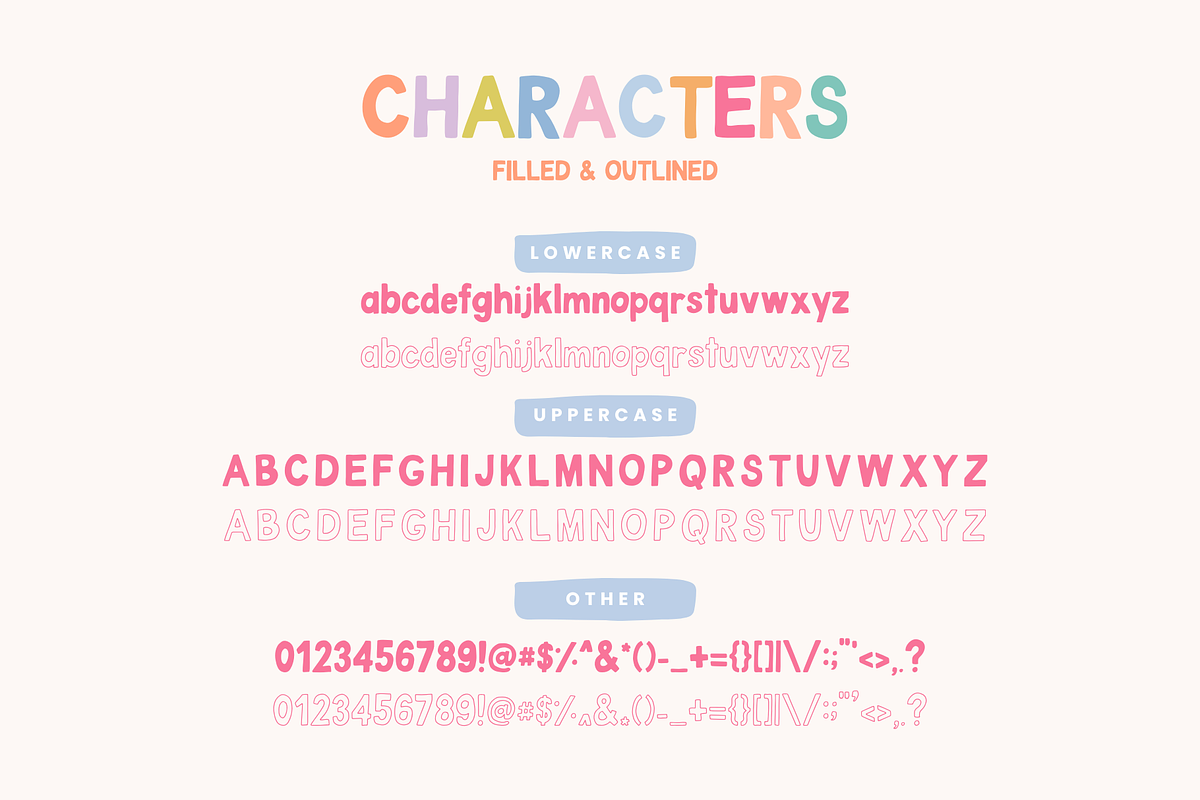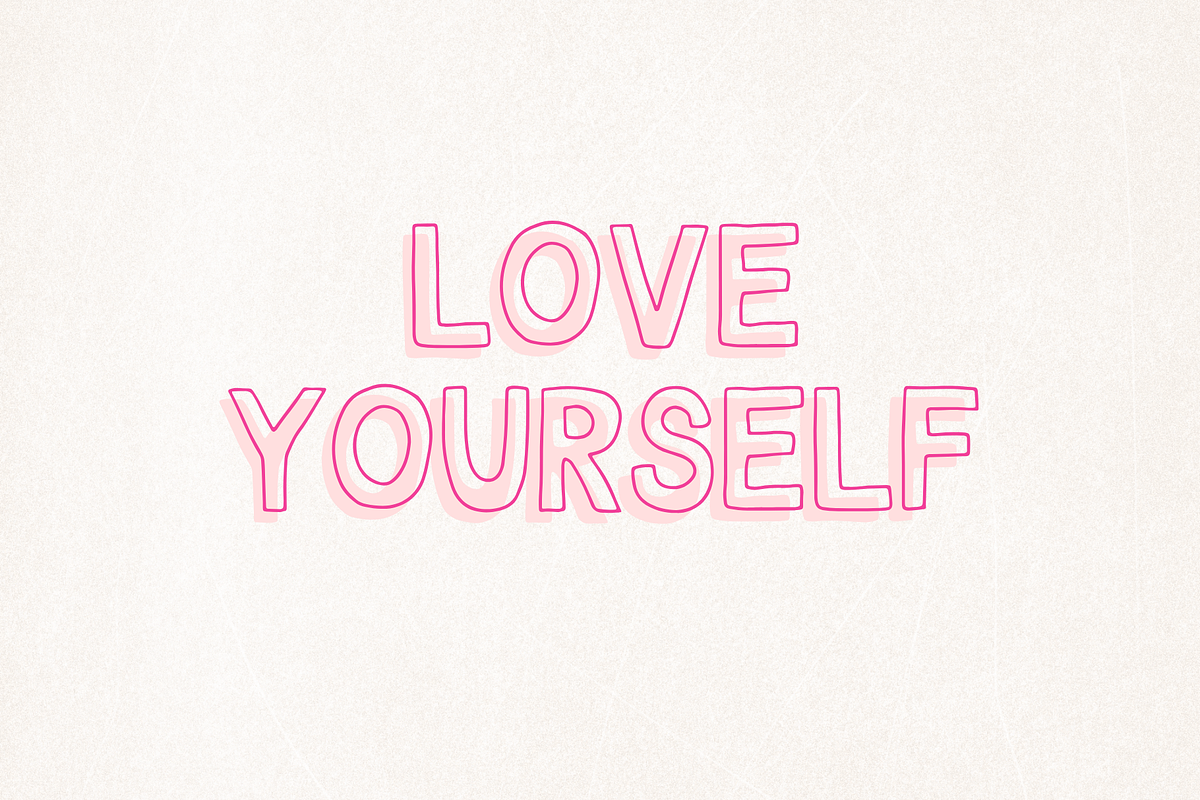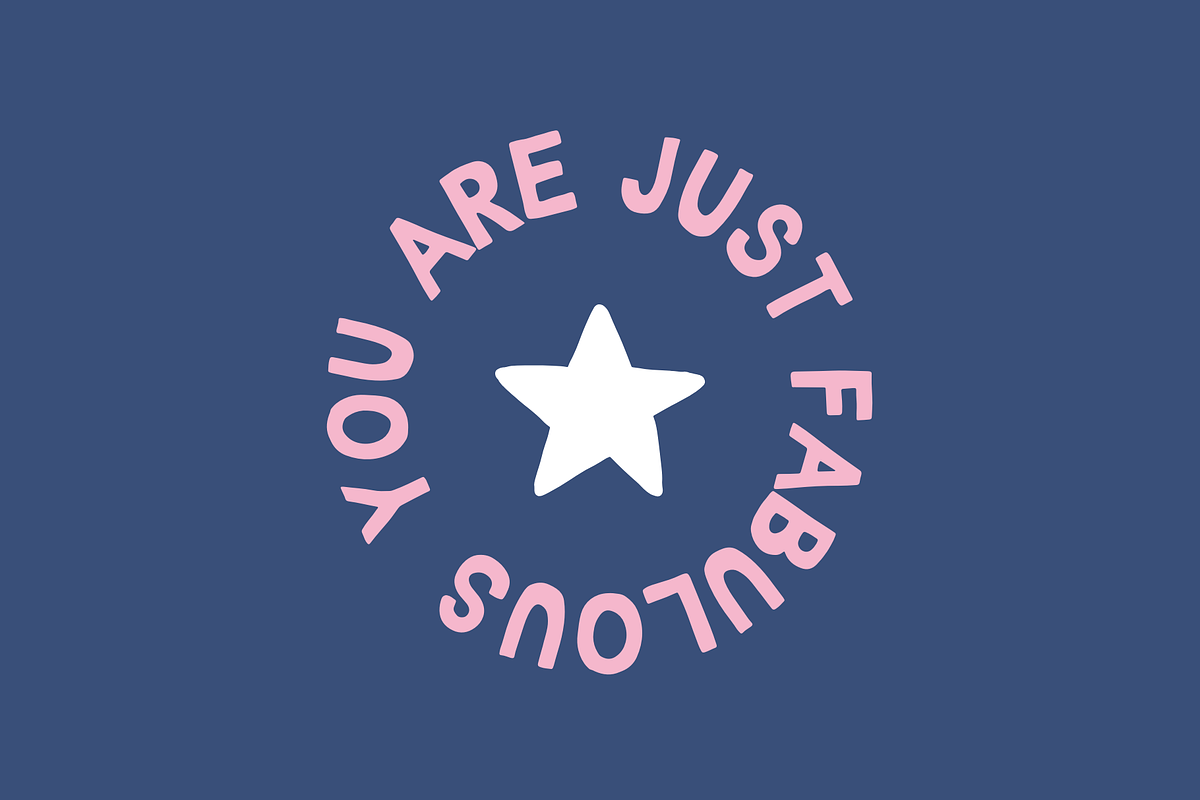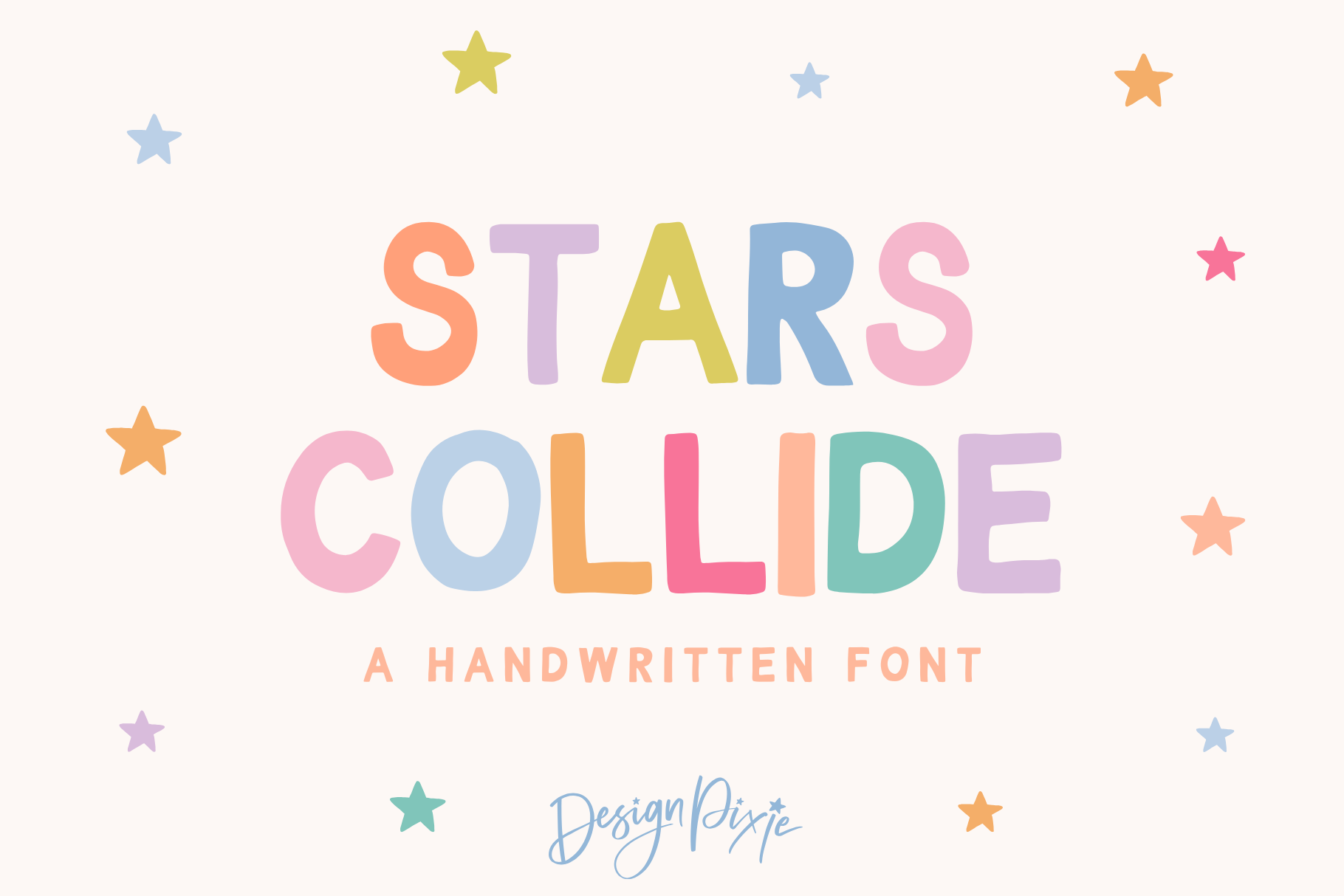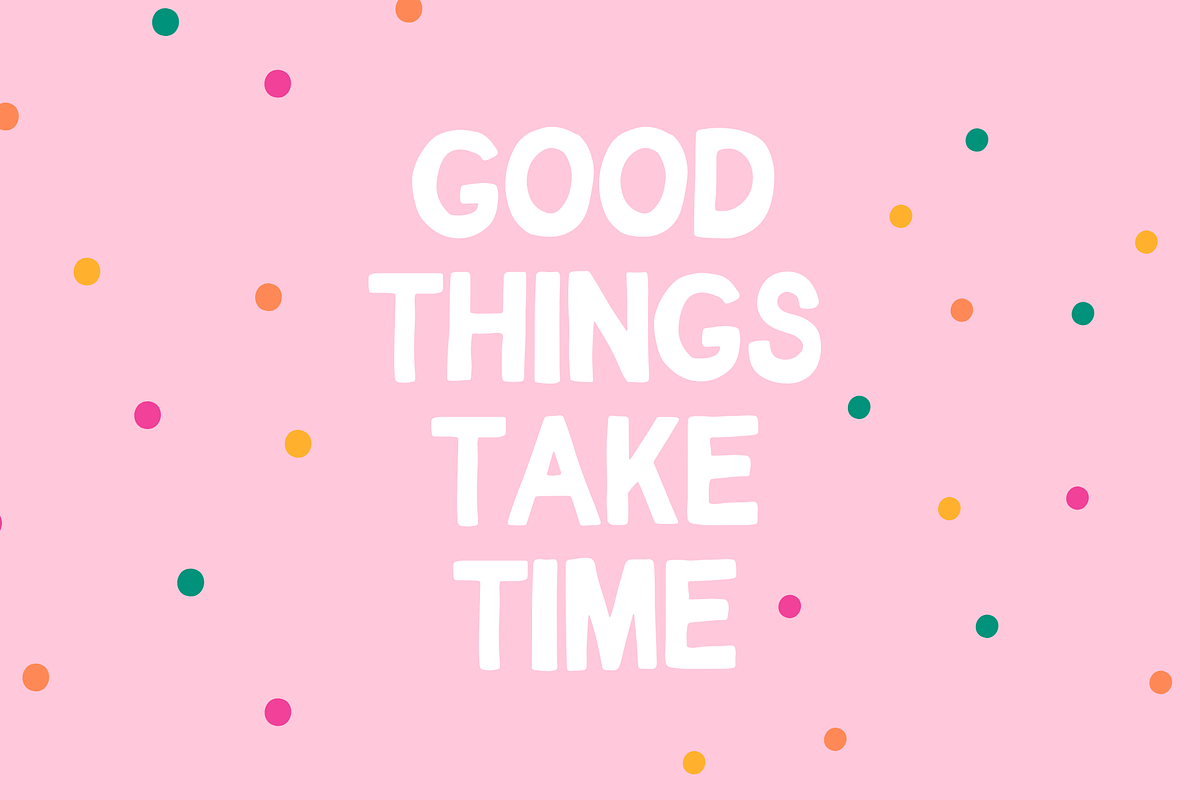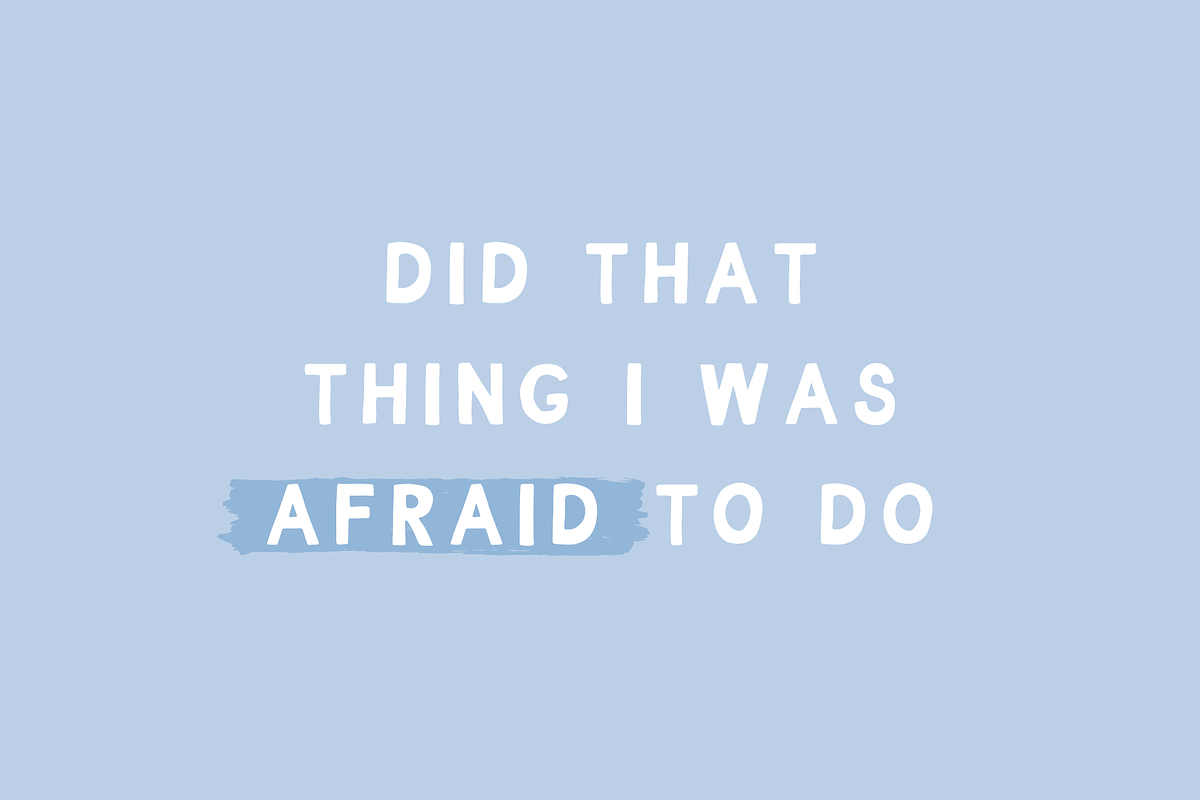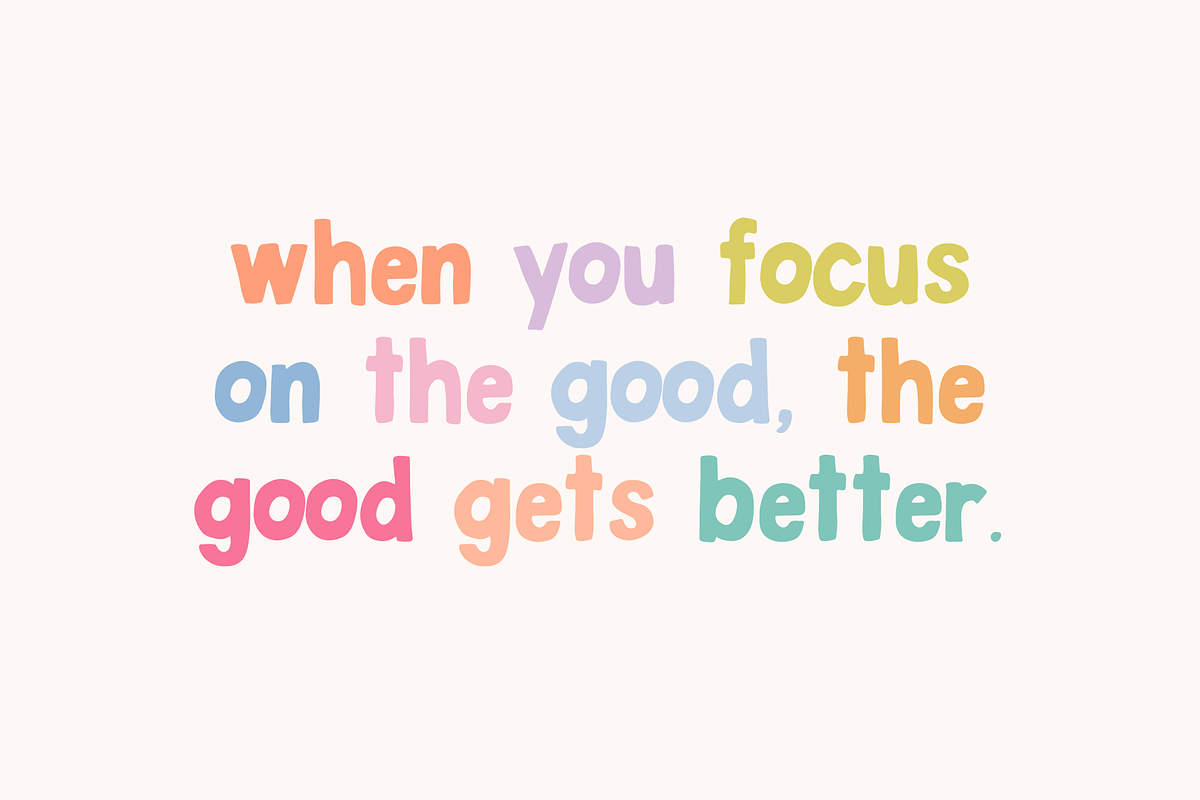
Stars Collide Font
Stars Collide is a cute handwritten font including uppercase and lowercase characters. It's a great font for lettering, Procreate, iPad, Cricut and more. This playful font includes a filled version for bold text, and an outlined font version to add creativity to your designs.